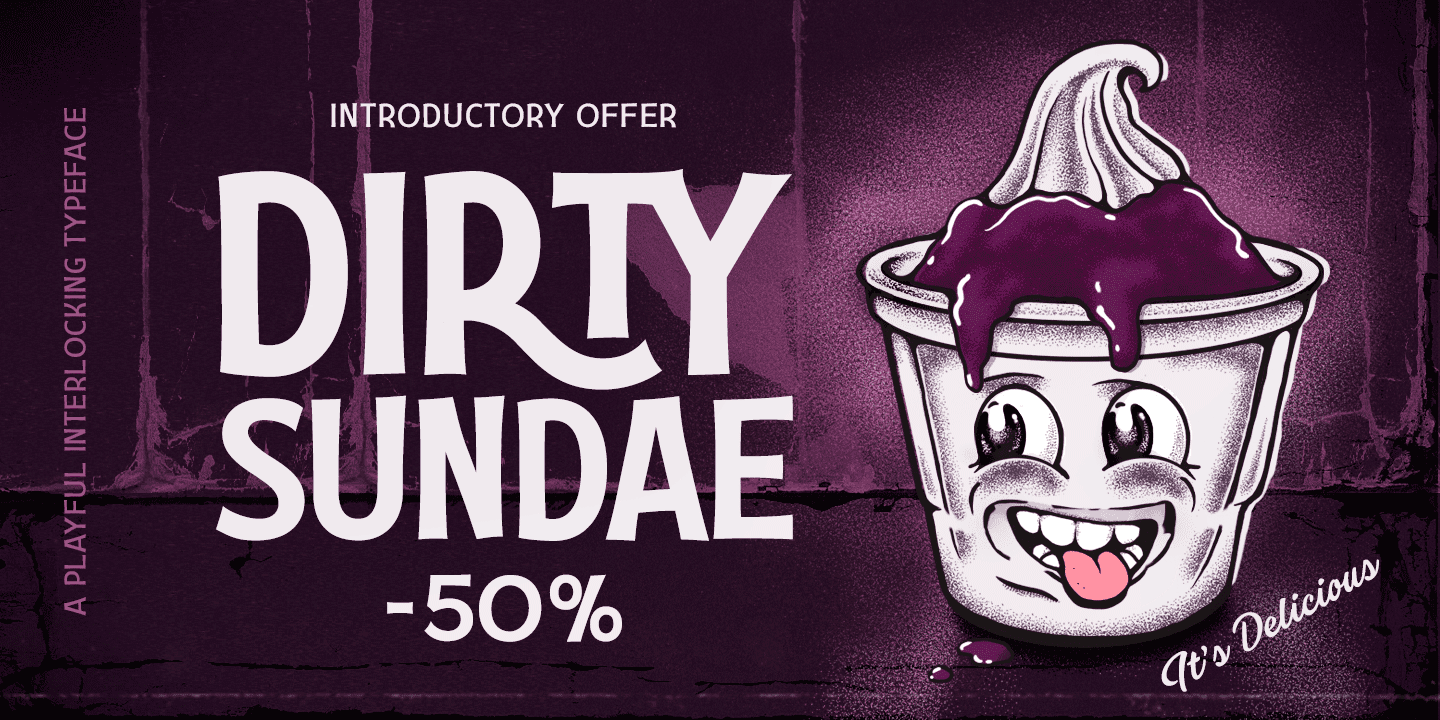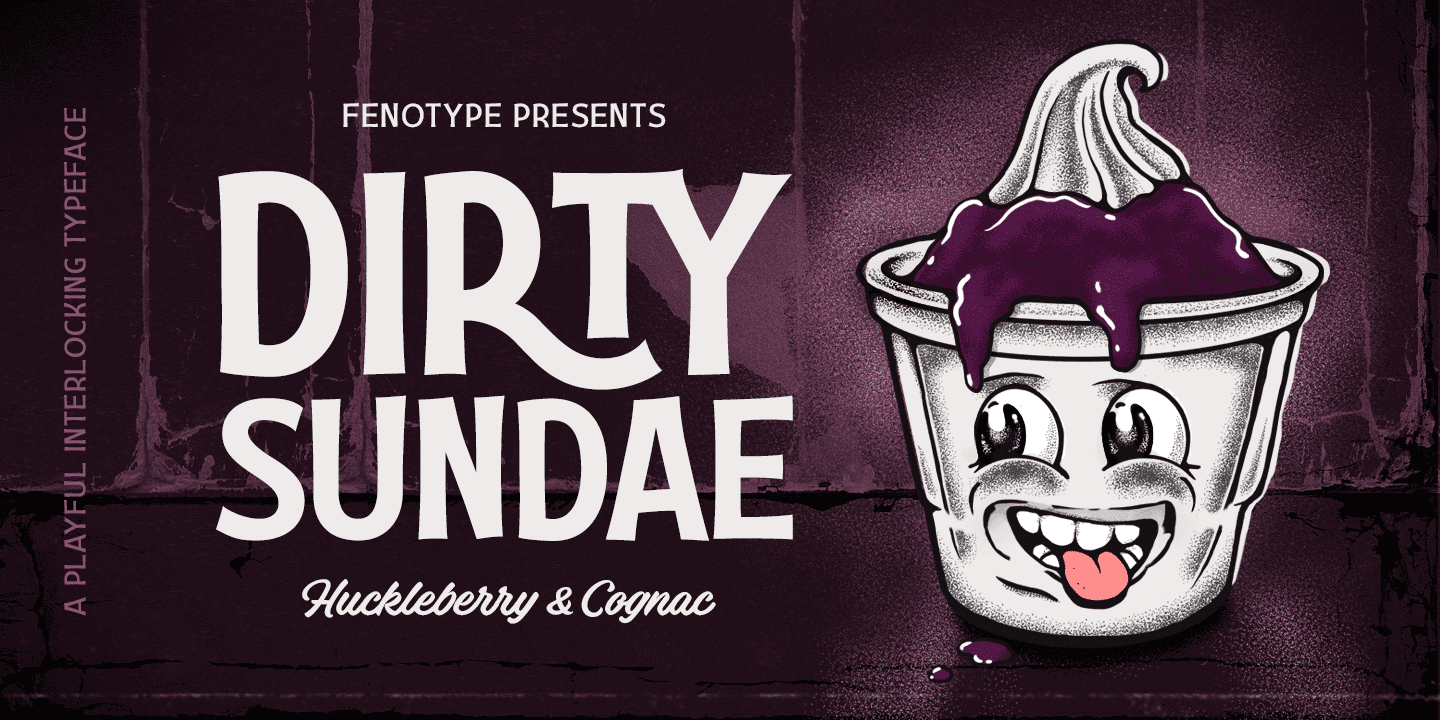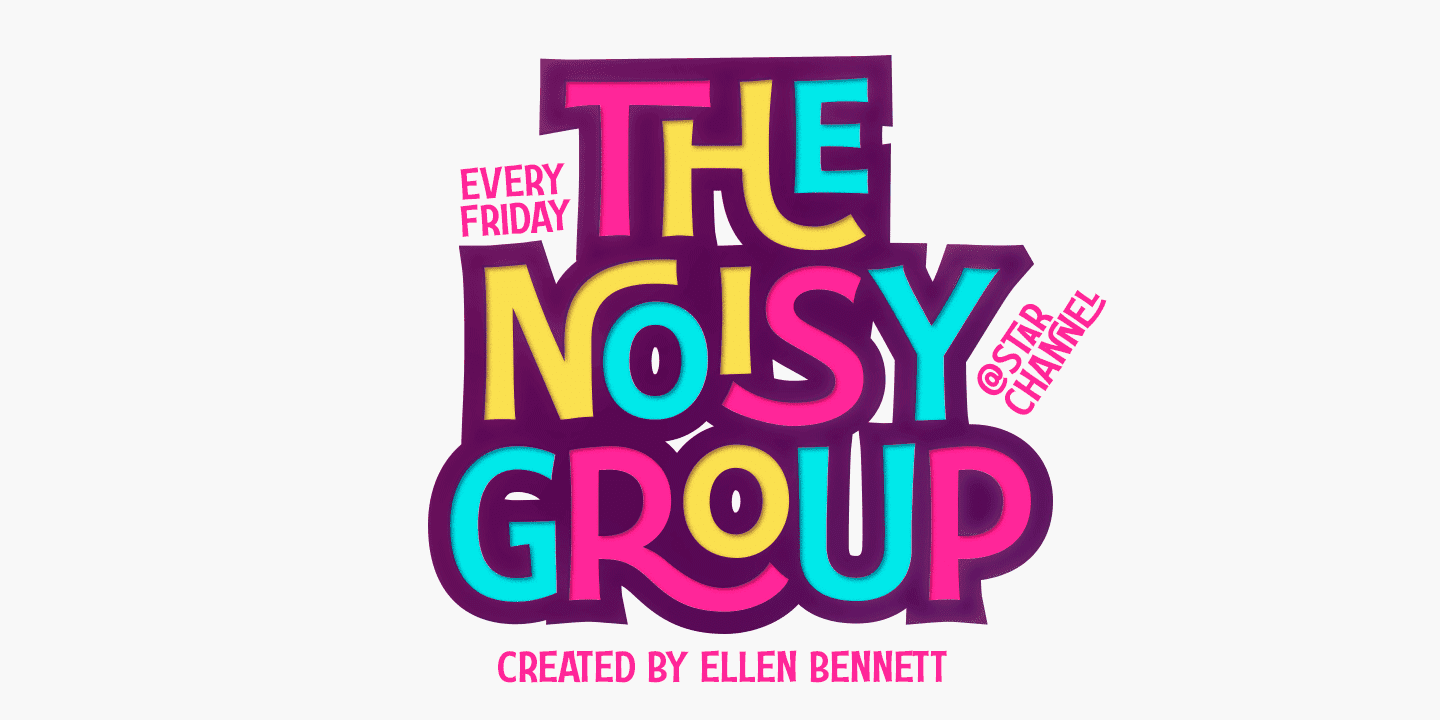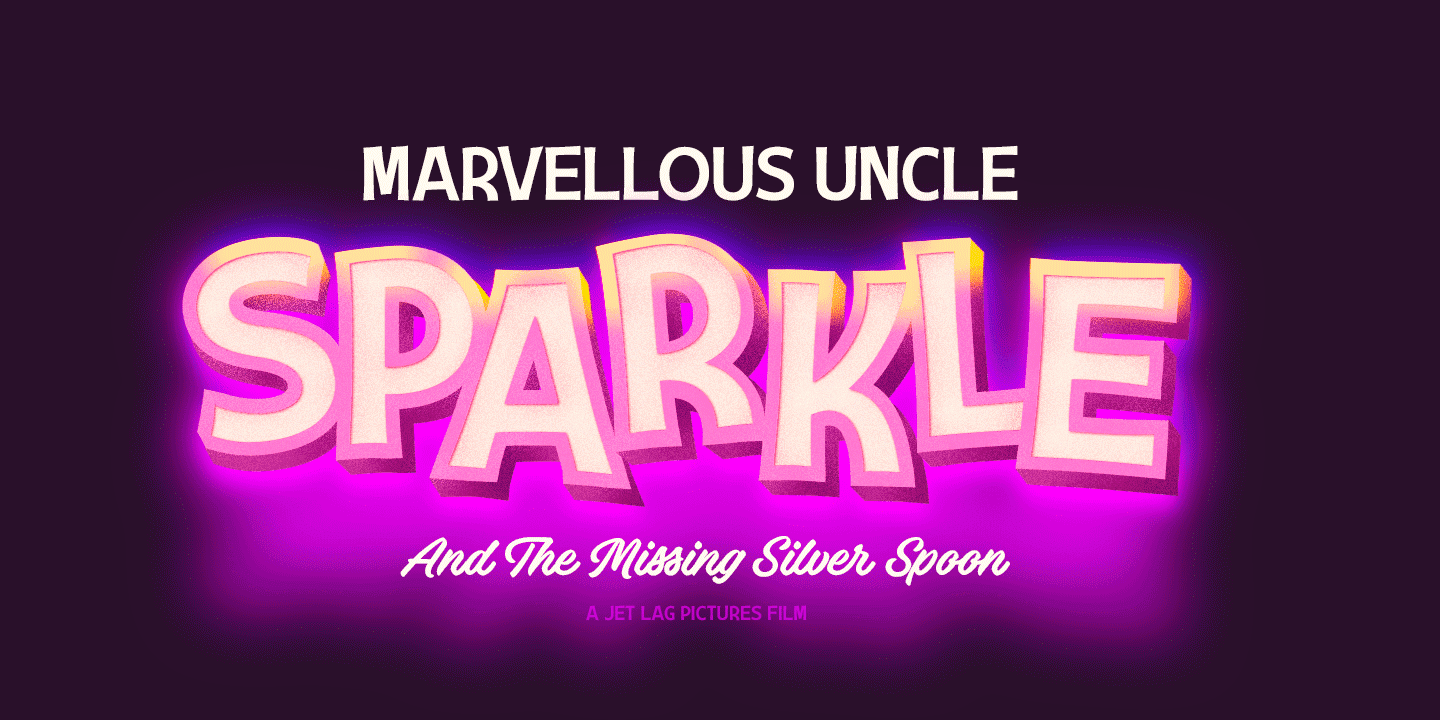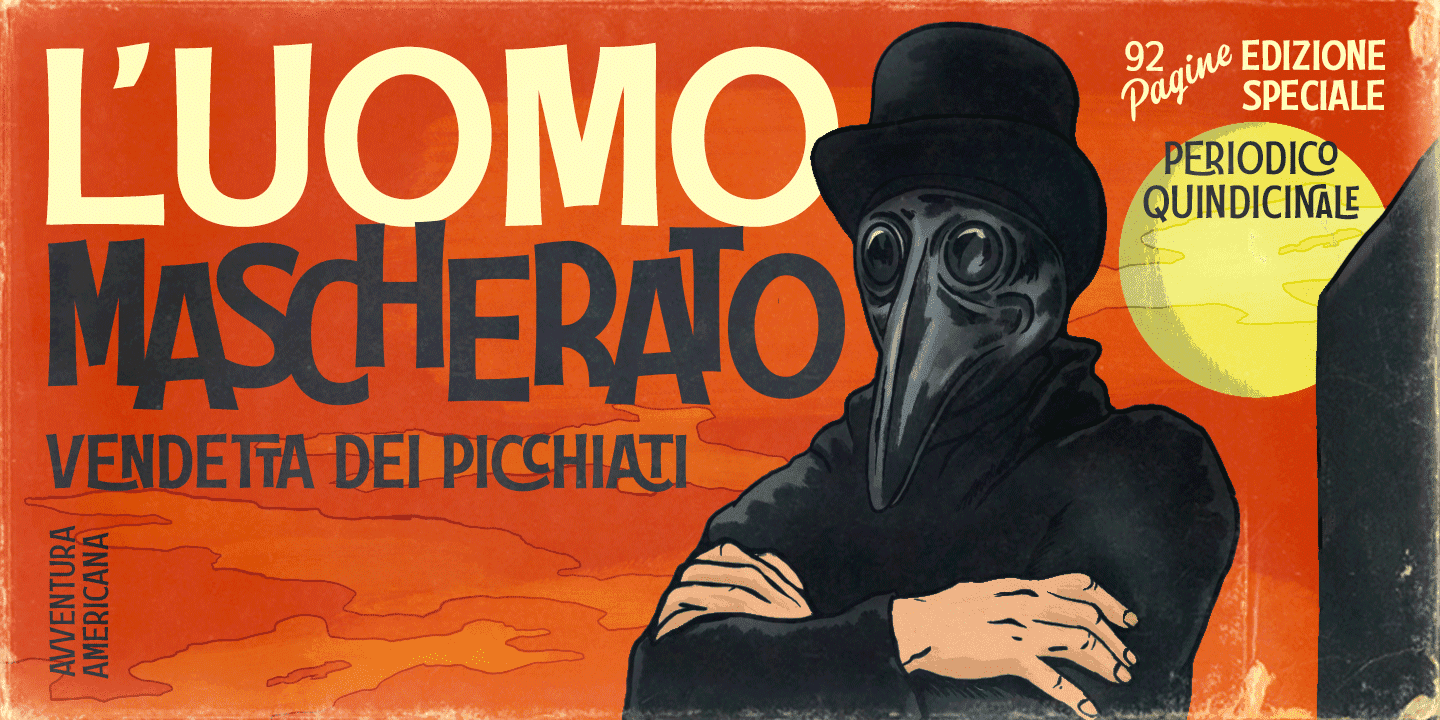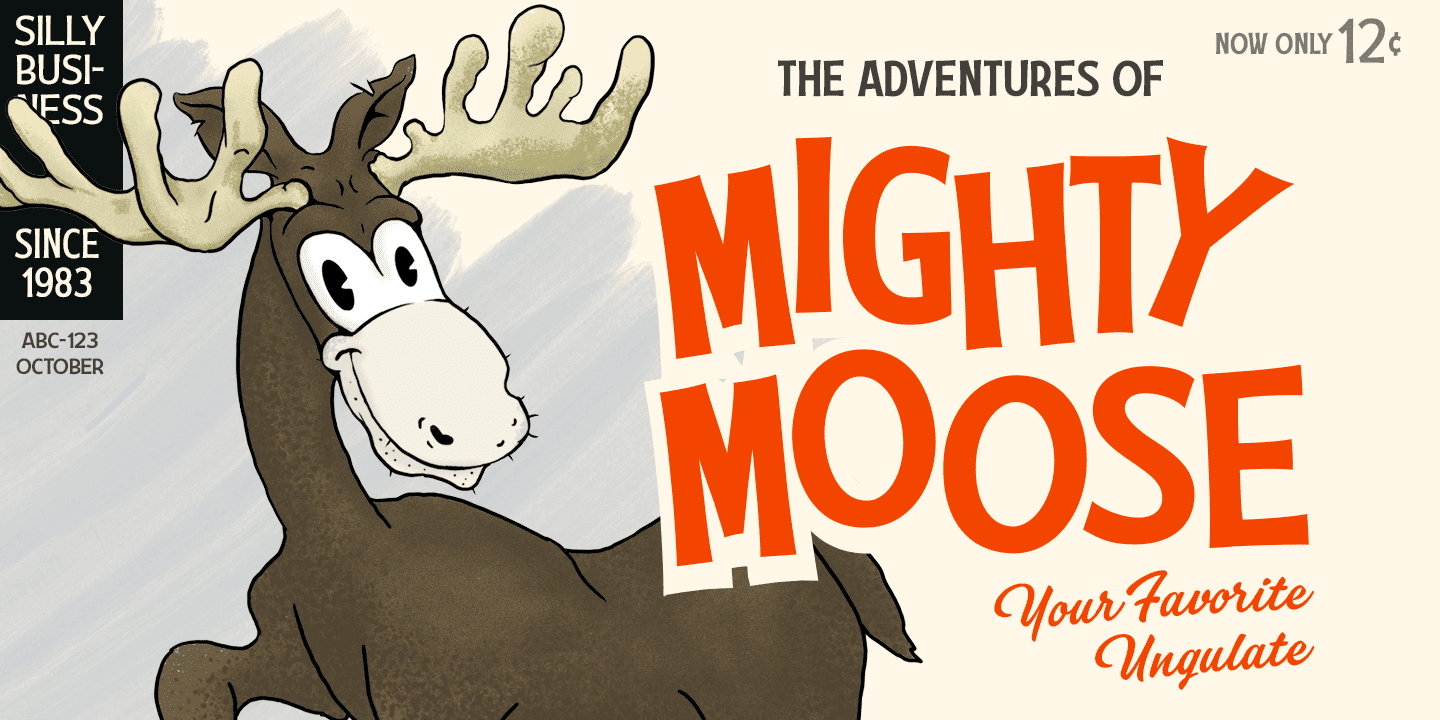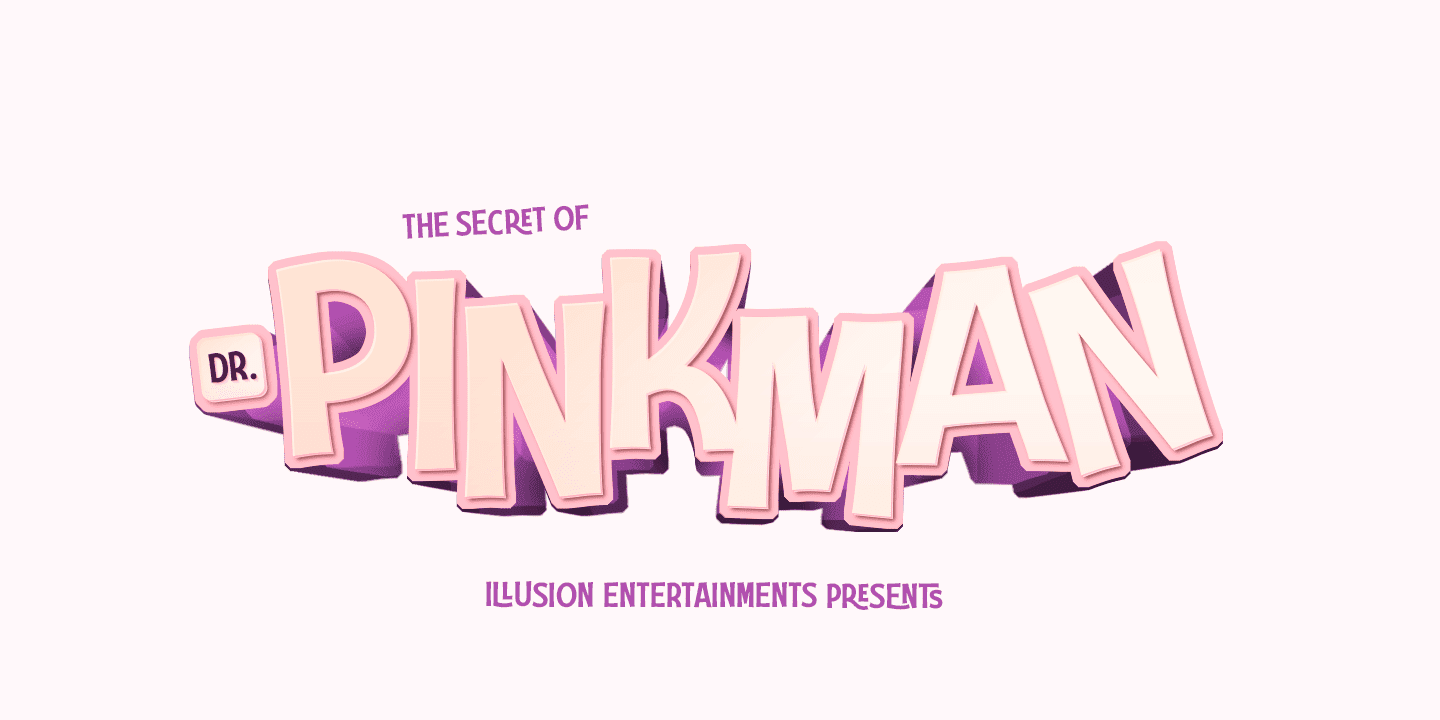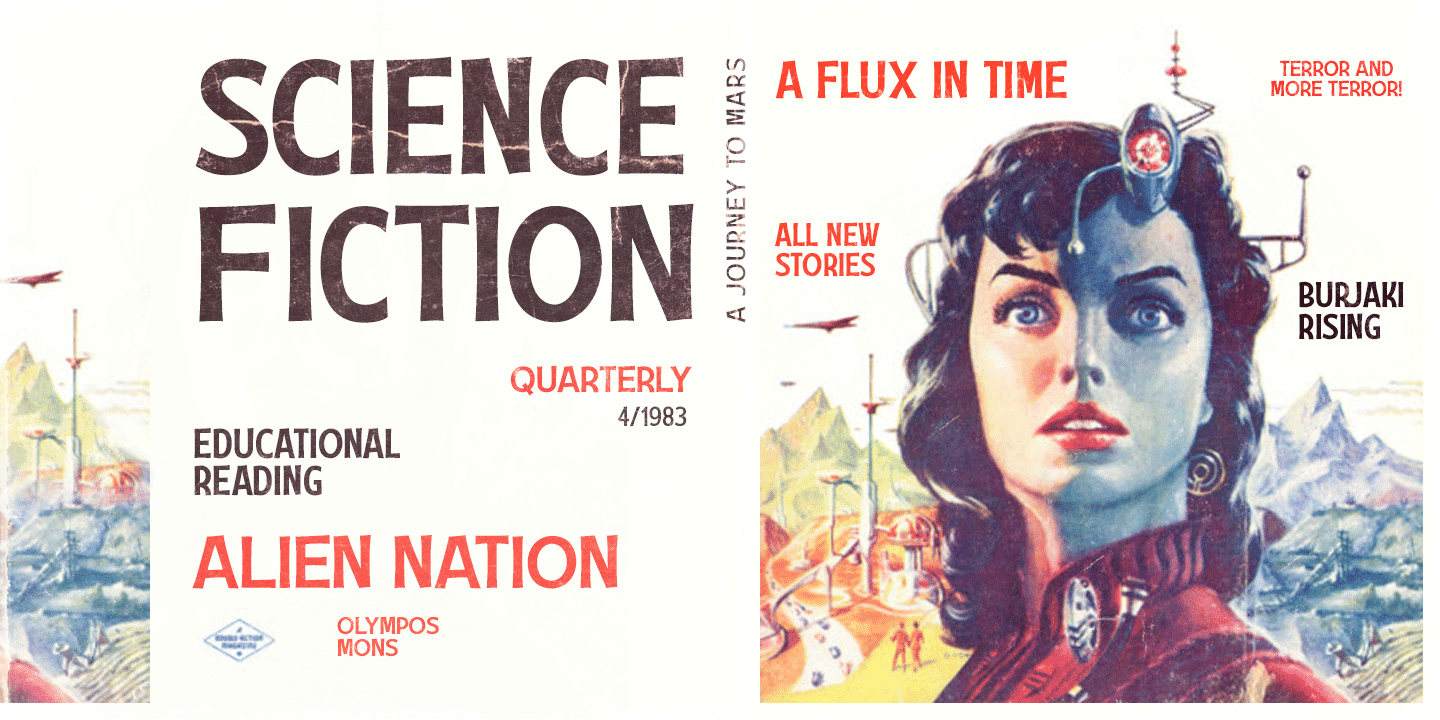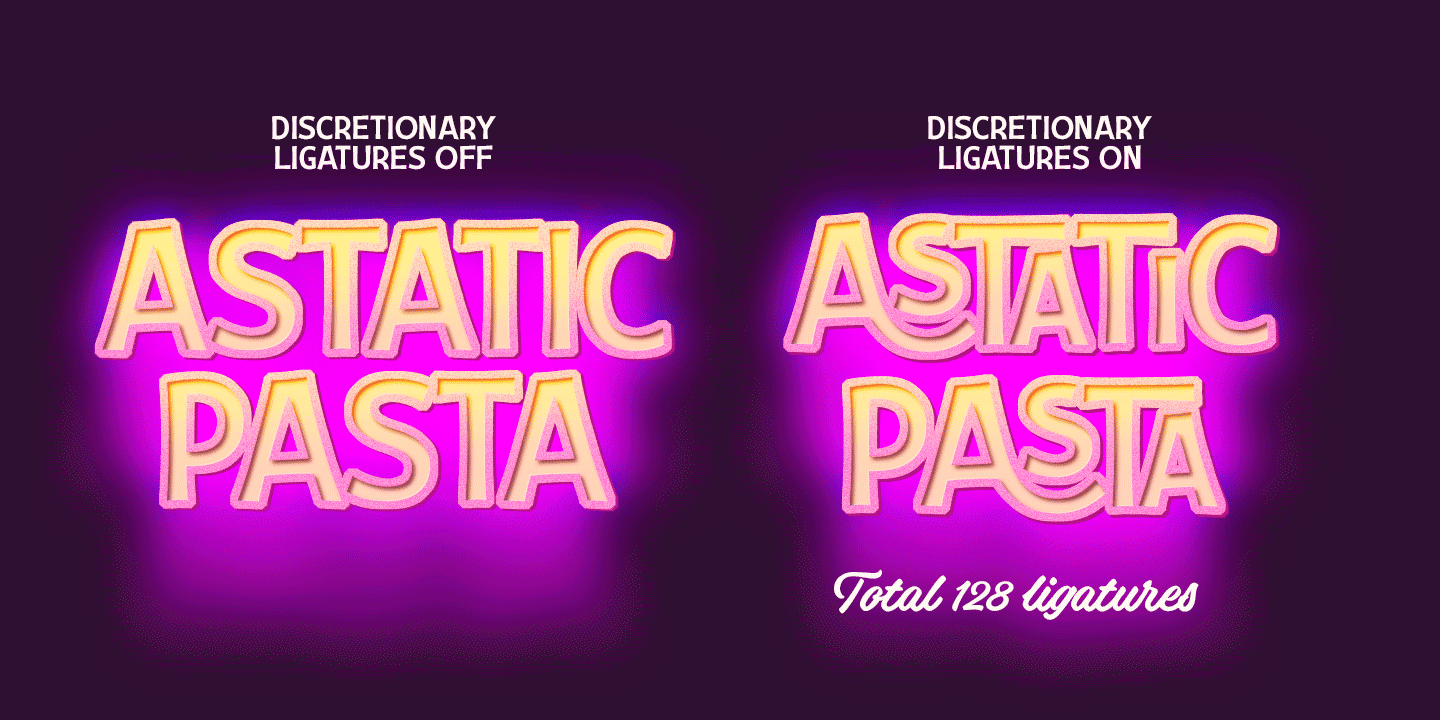
Dirty Sundae comes in four styles: Regular and Condensed plus Regular and Bold version of them both. Dirty Sundae suits great into a film title, as a logotype for a cartoon or an animation film or for a new superhero, as well as in a jazz gig poster, magazine, packaging and branding. It can be easily fit into a vintage or modern context as long as it’s on the cheerful side.
Dirty Sundae is equipped with 128 interlocking ligatures that you can access by turning on Discretionary Ligatures in any OpenType savvy program or by fetching them manually from the character window.